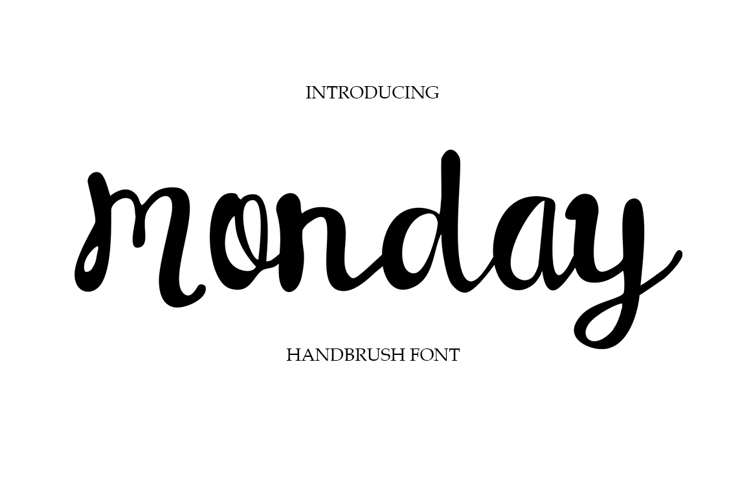
Beautiful Handwriting
Monday is a smooth and elegant handbrush font that brings a modern handwritten touch to your creative projects. With natural curves and a relaxed flow, it’s perfect for branding, social media posts, product packaging, logos, invitations, and blog headers.